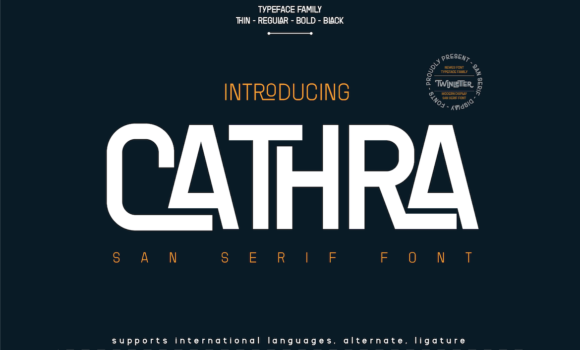
cathra
Cathra Font – Free Download Introduction to Cathra Font Cathra is a cool, bold and modern looking sans serif font. 📸 Preview Gallery 6 images 📌 Product Name Cathra Font 👤 Author Creative Fabrica Author 📂 Category Explore ⬇️ Download